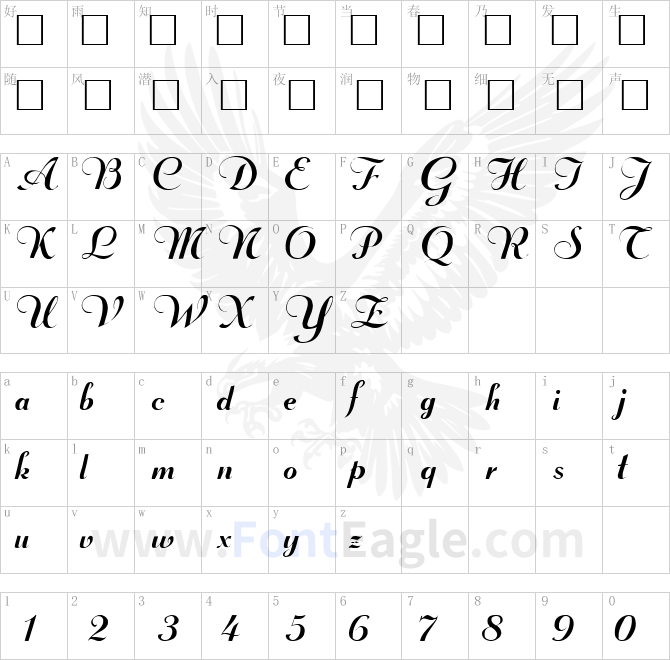
Troubadour-Plain is a great font, widely used in graphic design, single-page menu design, poster design and other fields, and is deeply loved by designers.Troubadour-Plain download.